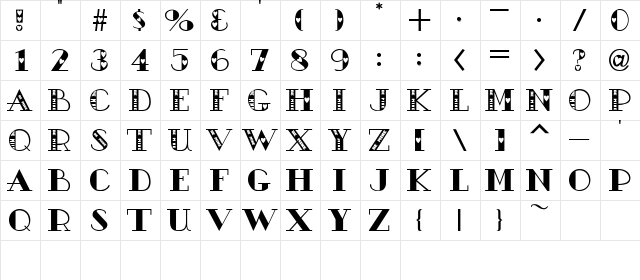
AC3-BeMine Regular
Design Context for AC3-BeMine Typeface
AC3-BeMine is a composed and adaptable typeface that performs quietly and consistently across a wide range of design contexts.